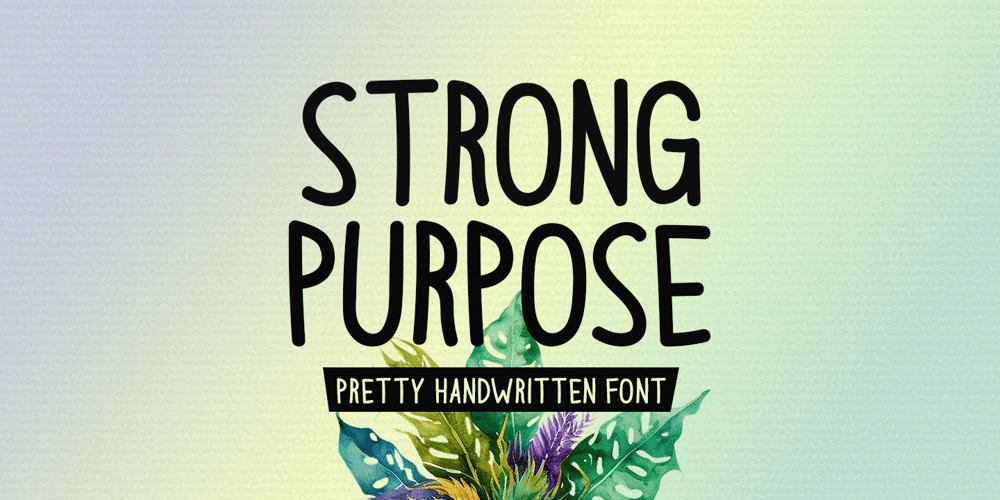
Strong Purpose Font Family was designed by Md Shohail Bhuian and published by Seemly Fonts. Strong Purpose contains 1 styles and family package options. The charming handwritten font Strong Purpose gives your work a cozy, unique touch. Its innovative style is perfect for a variety of applications, such as stylish stationery, striking logos, trendy t-shirts, and imaginative print designs. This adaptable typeface is essential for any creative project since it looks great on website headers, intriguing photo frames, interesting flyers, striking album covers, posters, and much more.